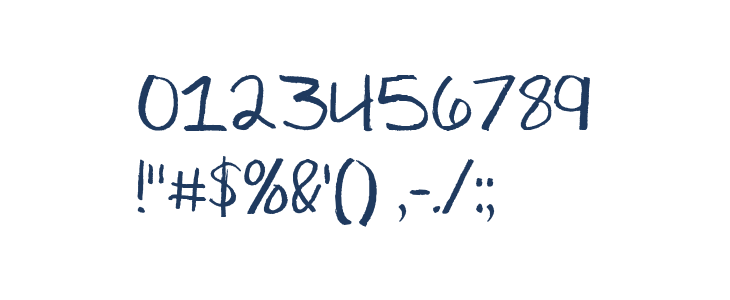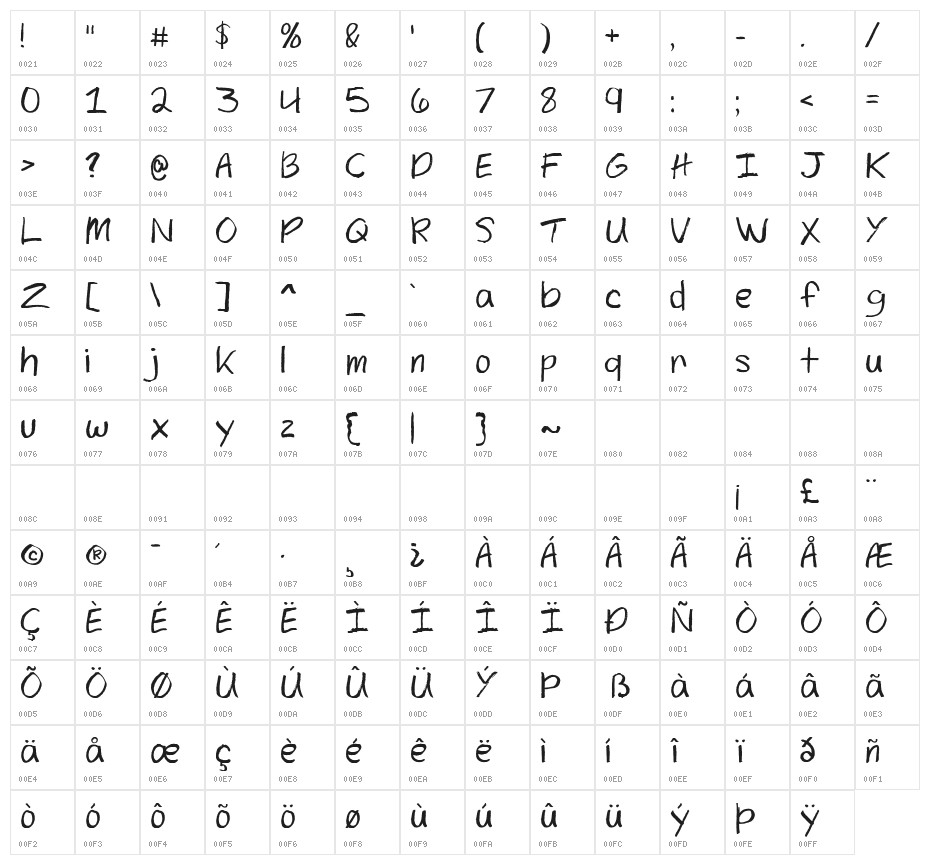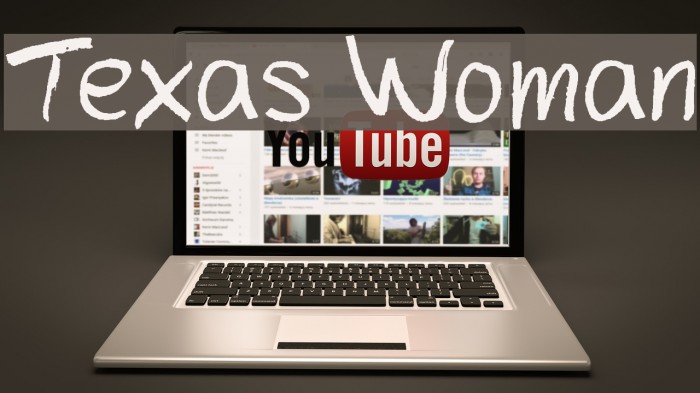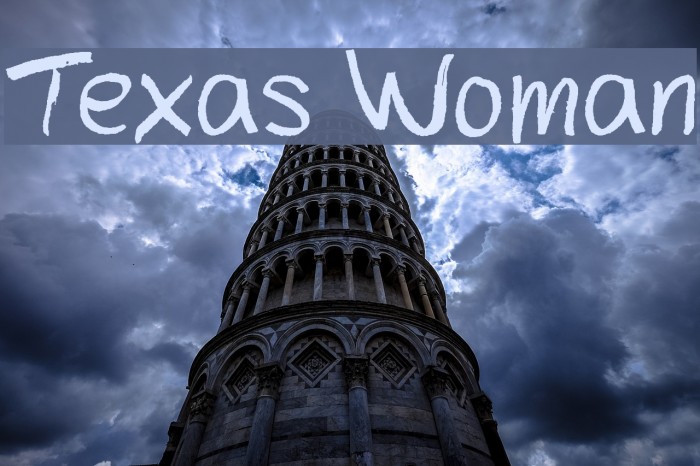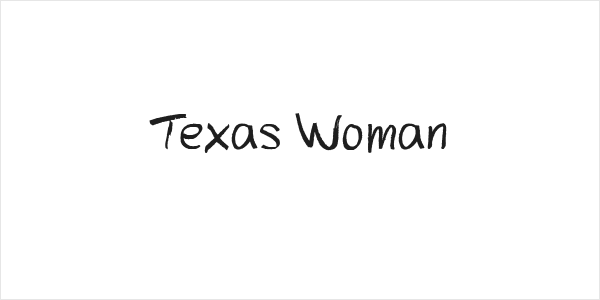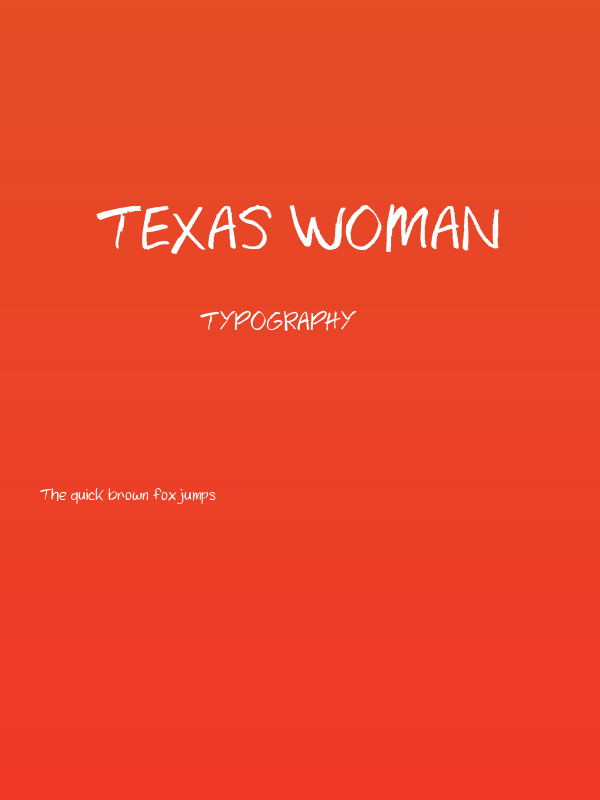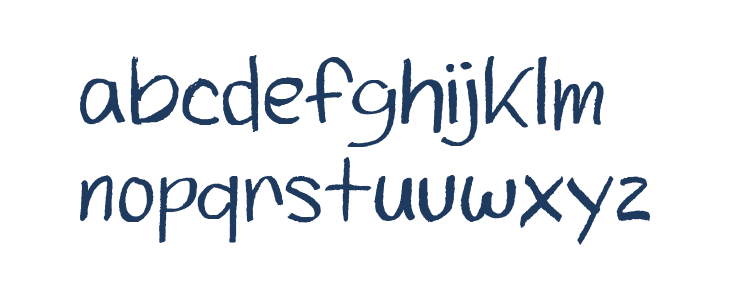
Texas Woman Font
Texas Woman Description
This font exudes a casual and handwritten style, characterized by its playful and informal appearance. The letters are slightly irregular, giving it a natural and organic feel, reminiscent of a personal note or a casual message. The strokes are uneven, with a mix of thick and thin lines that add to its charm and authenticity. The uppercase letters are bold and prominent, while the lowercase letters maintain a consistent flow, enhancing readability. The numbers and special characters follow the same handwritten aesthetic, making it versatile for various uses. Overall, this font brings a sense of warmth and approachability, perfect for projects that require a personal touch.
| Proposed Projects | Ideal for greeting cards, personal blogs, informal invitations, and creative projects that require a personal touch. |